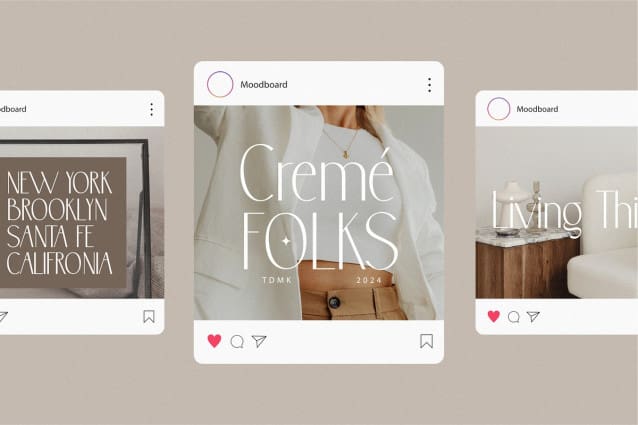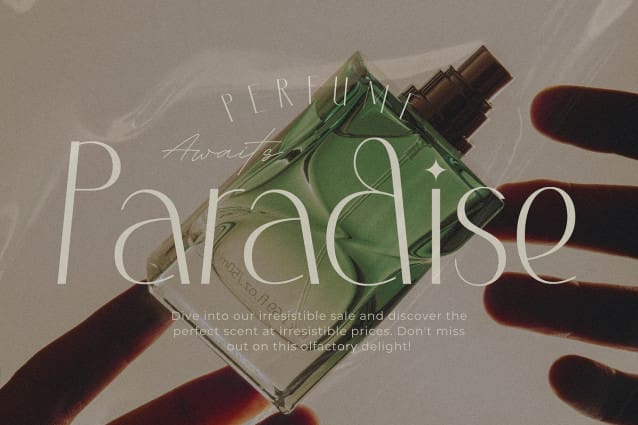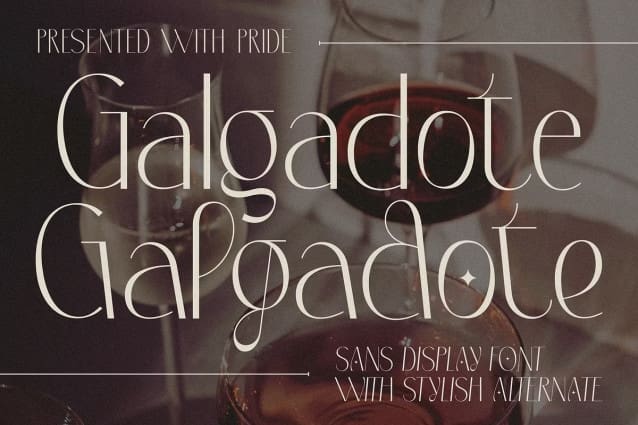
Galgadote Font
Galgadote Font – a captivating Sans Display Font crafted with meticulous attention to detail and imbued with stylish alternate characters.
Galgadote Font is a testament to modern design principles, marrying sleek simplicity with subtle sophistication. Its clean lines and balanced proportions make it perfect for a myriad of design projects, from branding to editorial layouts, advertising, and beyond. What sets Galgadote apart is its collection of stylish alternate characters, meticulously designed to provide versatility and uniqueness to your creations. With a simple keystroke, you can effortlessly transform your text, adding a touch of flair and individuality to your designs.
Whether you’re designing sleek corporate identities, eye-catching headlines, or striking posters, Galgadote offers the flexibility and elegance to elevate your work to new heights. Its seamless legibility ensures that your message is conveyed with clarity and impact, while its distinctive style leaves a lasting impression on your audience. With Galgadote, your design possibilities are limitless. Elevate your projects and make a statement with this sophisticated Sans Display Font today.